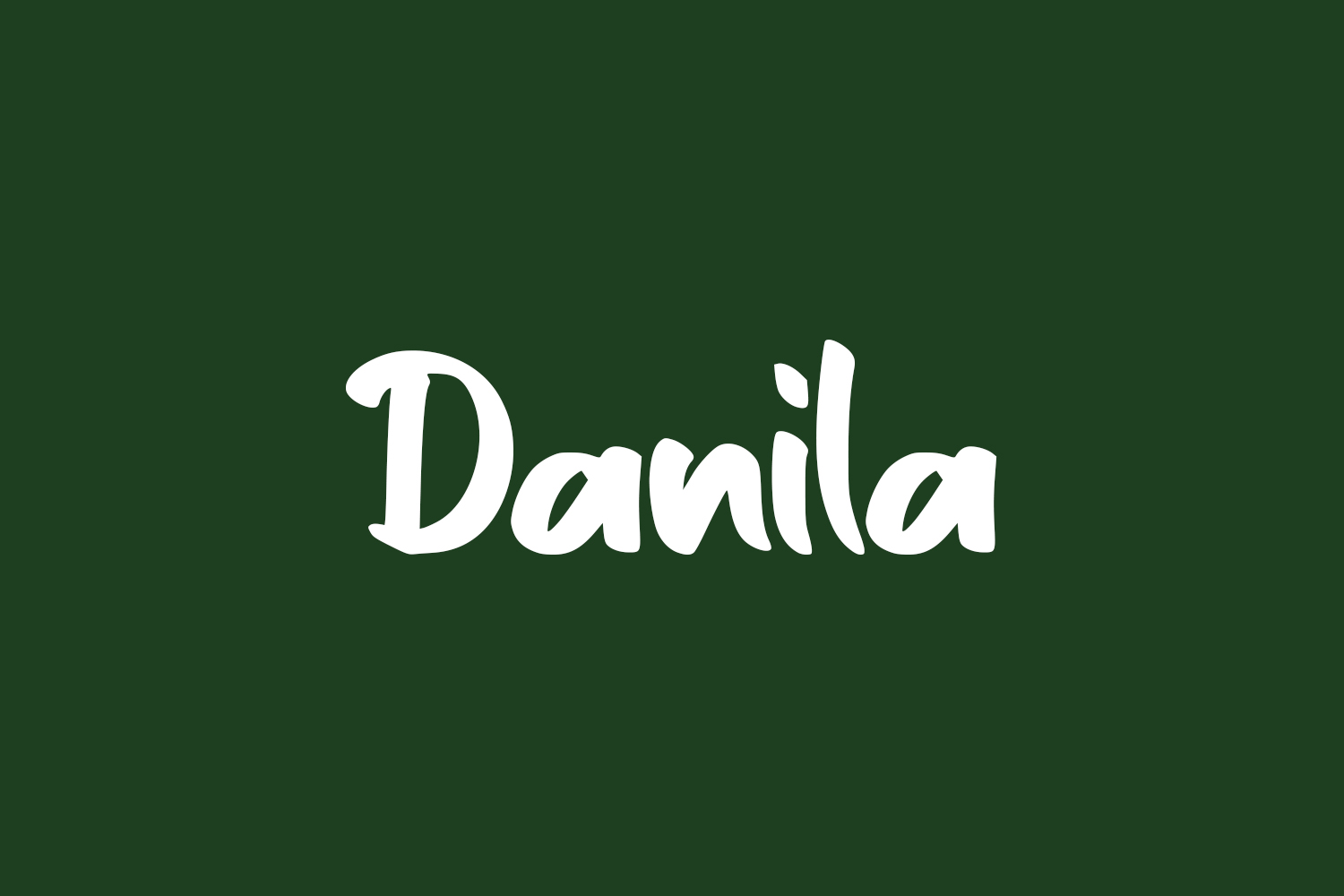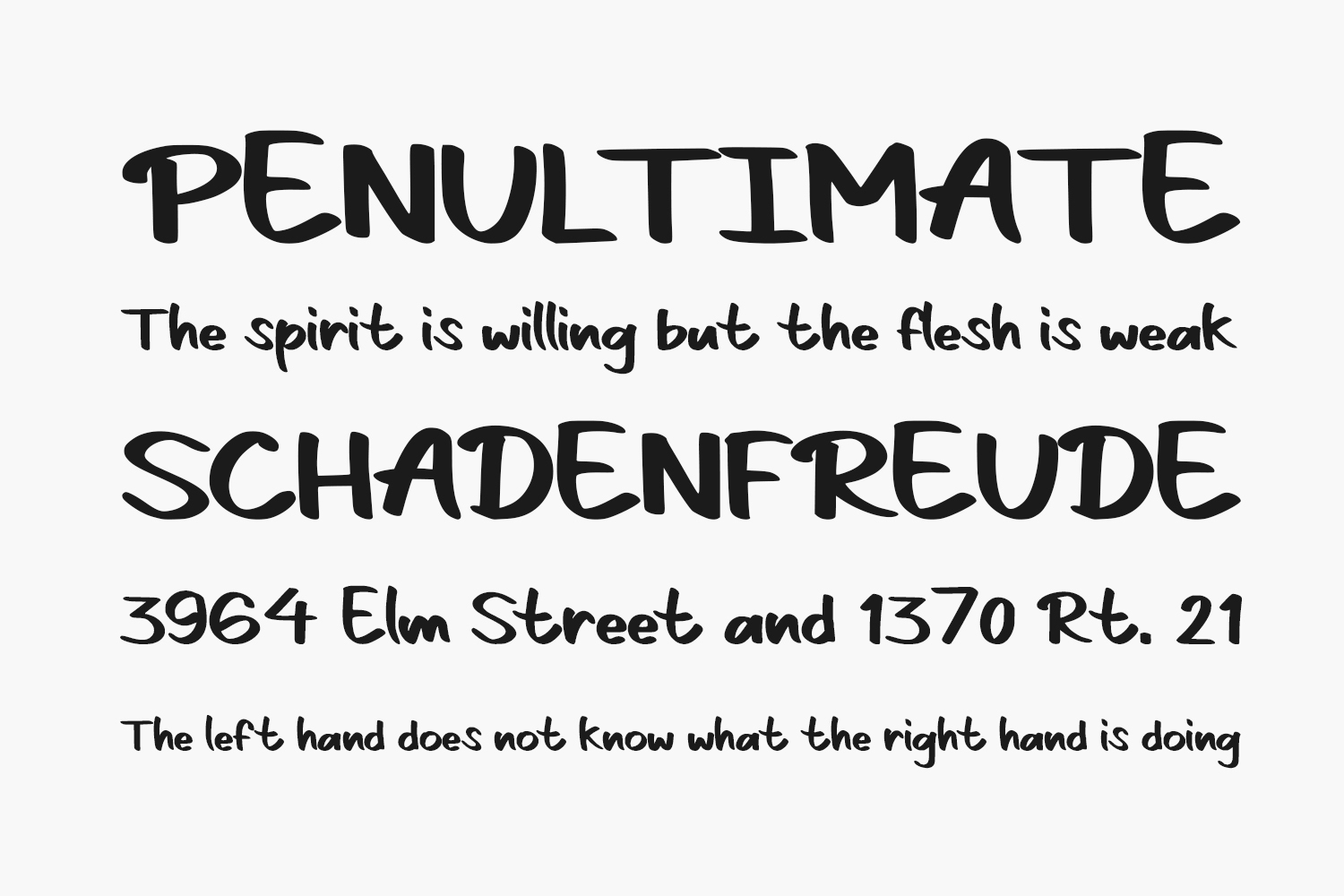
Danila Free Font is a simple and flowing handwritten font. This adaptable font will look great on a variety of design ideas. It will add a fun and friendly touch to each of your projects. Danila Free Font was designed by Letterayu and is free for personal use only. Please purchase the full version for commercial use.